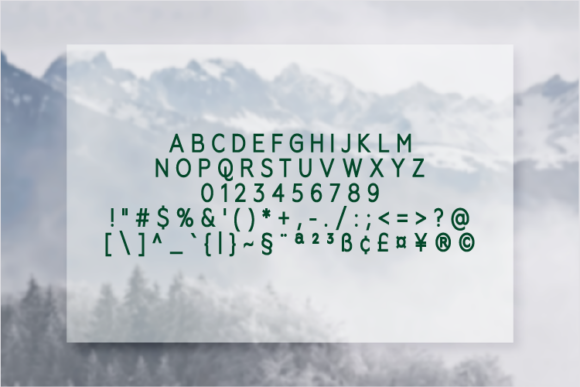
Introducing Allovoneue Black Font: A Modern Geometric Sans-Serif Marvel
In the realm of typography, the right font can elevate a design from ordinary to extraordinary. For designers and crafters seeking a fresh, geometric, and versatile typeface, Allovoneue Black Font is an exciting discovery. This sans-serif font family boasts geometrical letterforms, sharp edges, and minimal stroke contrast, reminiscent of neo-grotesk fonts from the 20th century.
What is Allovoneue Black Font?
Allovoneue Black Font is part of the Allovoneue font family, characterized by its clean, geometric lines and modern aesthetic. This font is designed to offer a unique blend of simplicity and sophistication, making it suitable for a wide range of applications, from magazines and posters to branding and digital media.
Key Features of Allovoneue Black Font
- Geometric Design: Allovoneue Black Font features geometric letterforms that provide a clean and modern look.
- Sharp Edges: The sharp edges of the font add a touch of sophistication and make it stand out in any design.
- Minimal Stroke Contrast: With very small stroke contrast, Allovoneue Black Font achieves a neo-grotesk style that is both classic and contemporary.
- Versatility: This font is incredibly versatile, suitable for various design projects including magazines, posters, branding, and more.
Uses of Allovoneue Black Font
The versatility of Allovoneue Black Font makes it an excellent choice for a multitude of design projects. Here are some of the top uses for this remarkable font:
- Magazines and Newspapers: The clean and readable design of Allovoneue Black Font makes it perfect for headlines and body text in magazines and newspapers.
- Posters and Flyers: Grab attention with bold and geometric typography that stands out on posters and flyers.
- Branding and Logo Design: Create a modern and professional brand image with Allovoneue Black Font, ideal for logos, business cards, and letterheads.
- Digital Media: Enhance your website, social media graphics, and digital advertisements with a fresh and contemporary typeface.
Benefits of Using Allovoneue Black Font
Choosing Allovoneue Black Font for your design projects comes with several benefits:
- Uniqueness: Stand out from the crowd with a font that offers a fresh take on geometric sans-serif typography.
- Readability: The clear and geometric design ensures high readability, even at smaller sizes.
- Flexibility: Use Allovoneue Black Font across various platforms and design materials, from print to digital.
- Professionalism: Impress your audience with a modern and sophisticated typeface that elevates your design.
Allovoneue Black Font is a powerful addition to any designer’s toolkit, offering a unique blend of geometric precision, modern aesthetic, and versatility. Whether you’re working on a magazine, poster, branding project, or digital media, this font is sure to enhance your design and make it stand out. Explore the possibilities of Allovoneue Black Font and discover how it can elevate your typography to new heights.